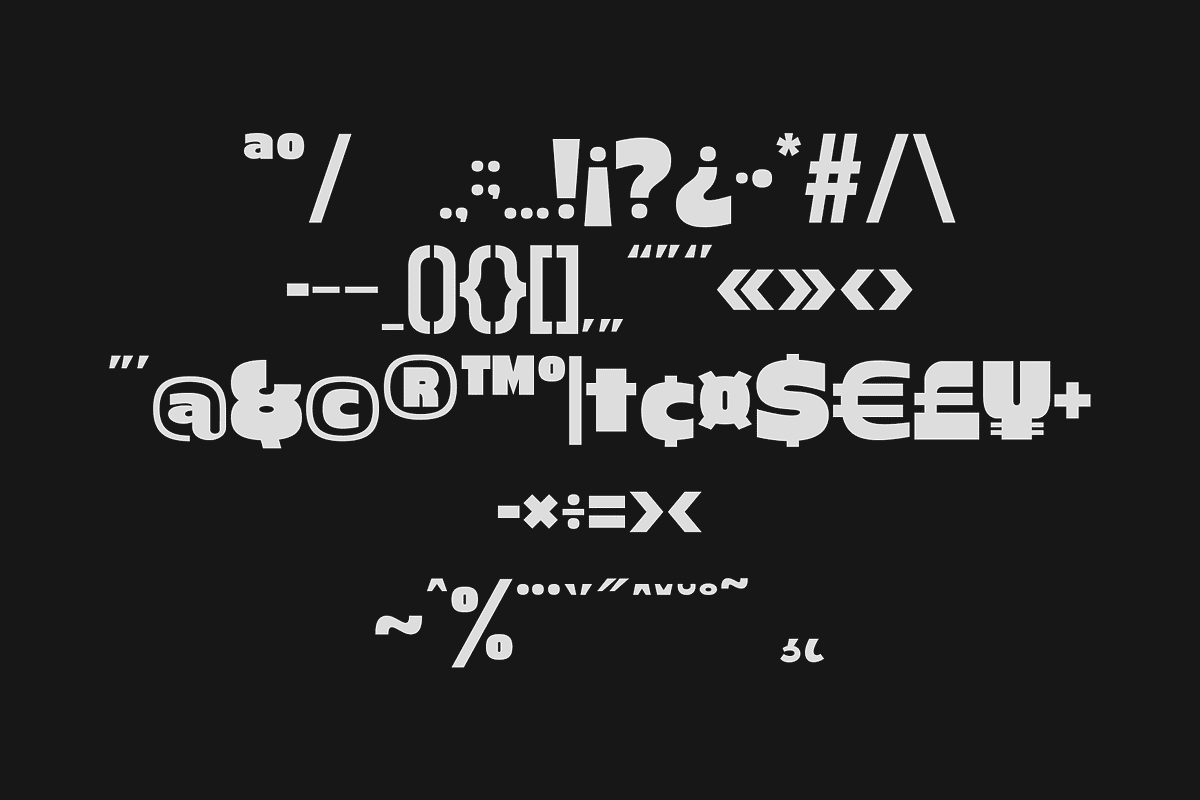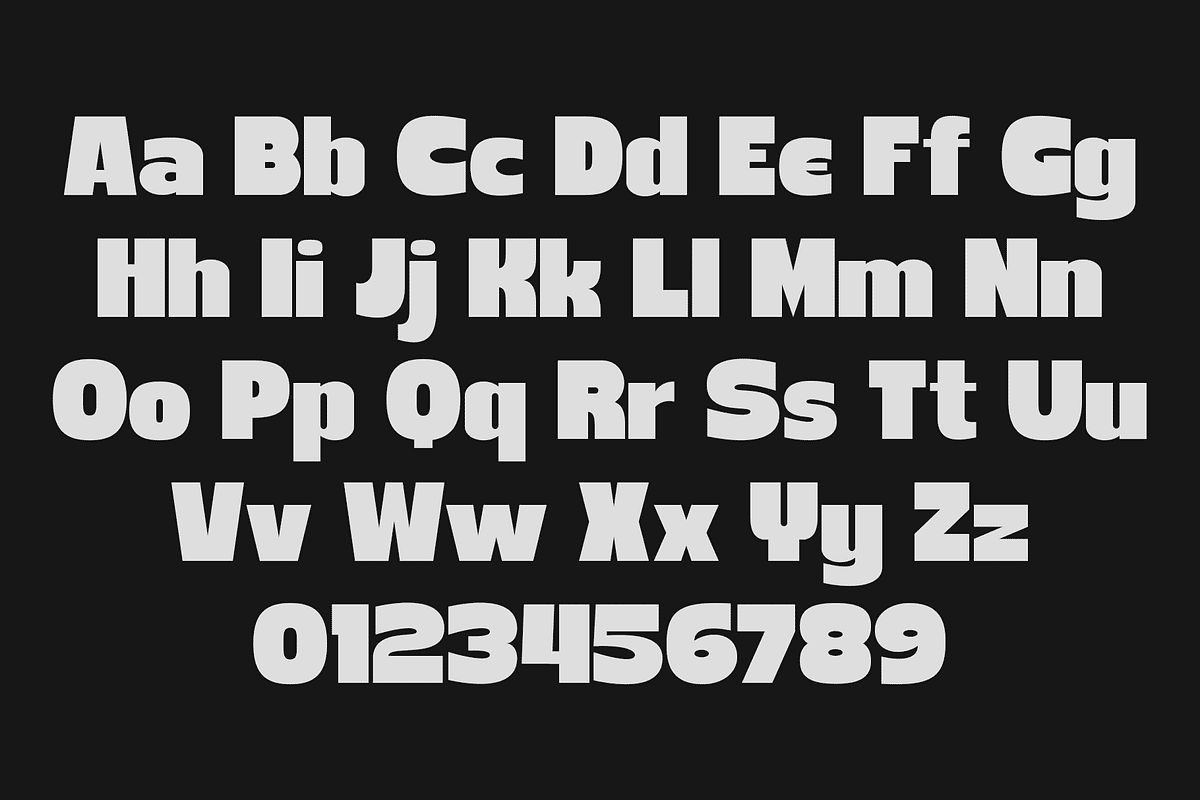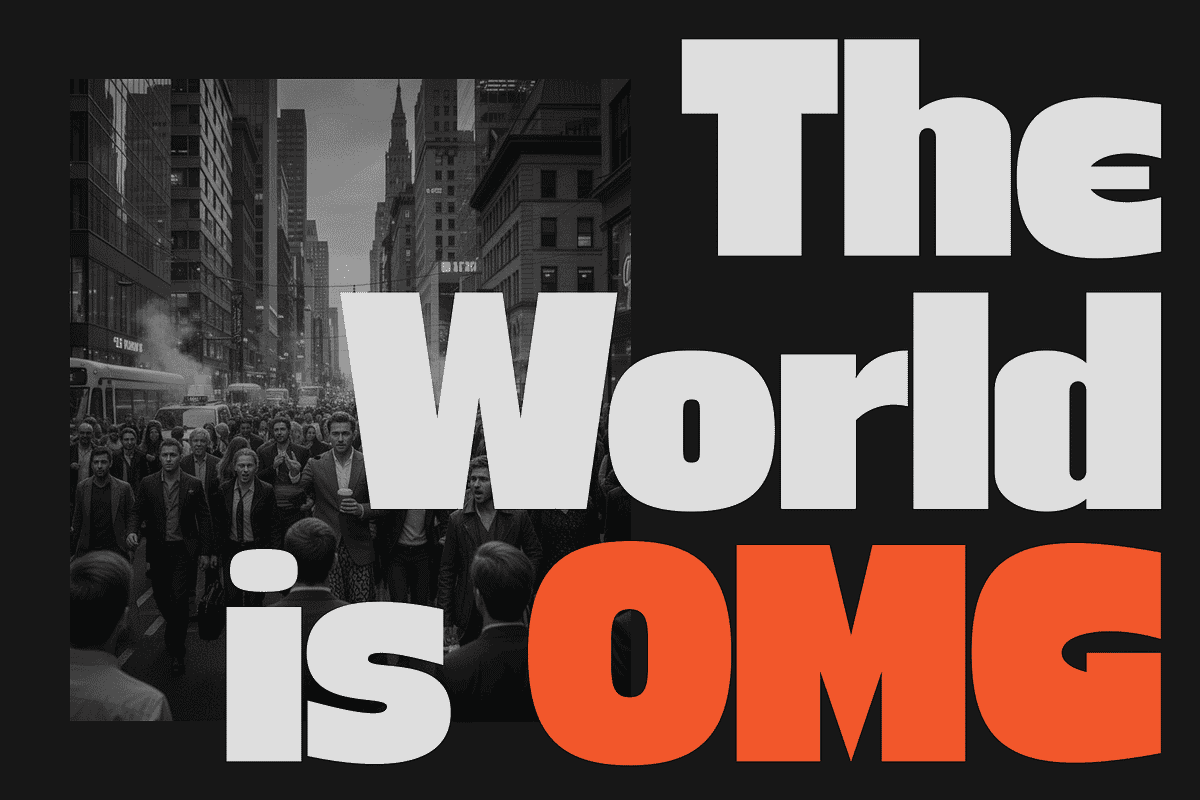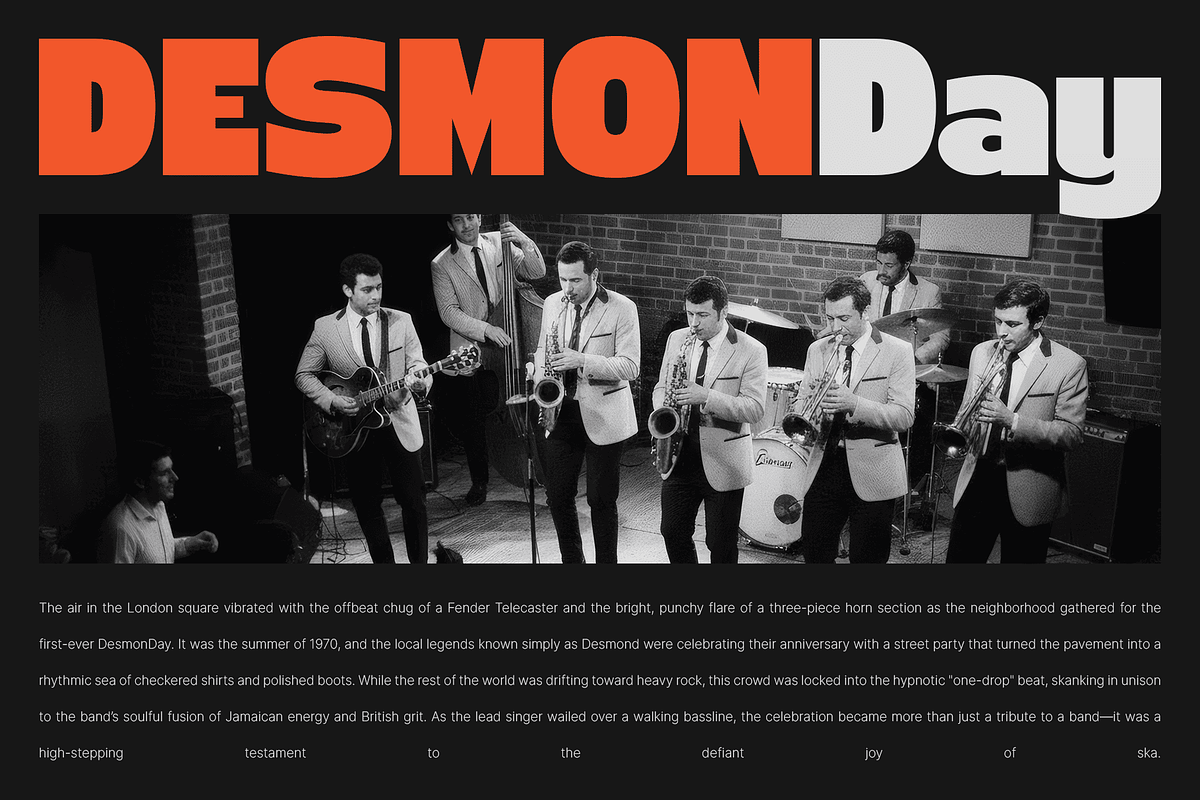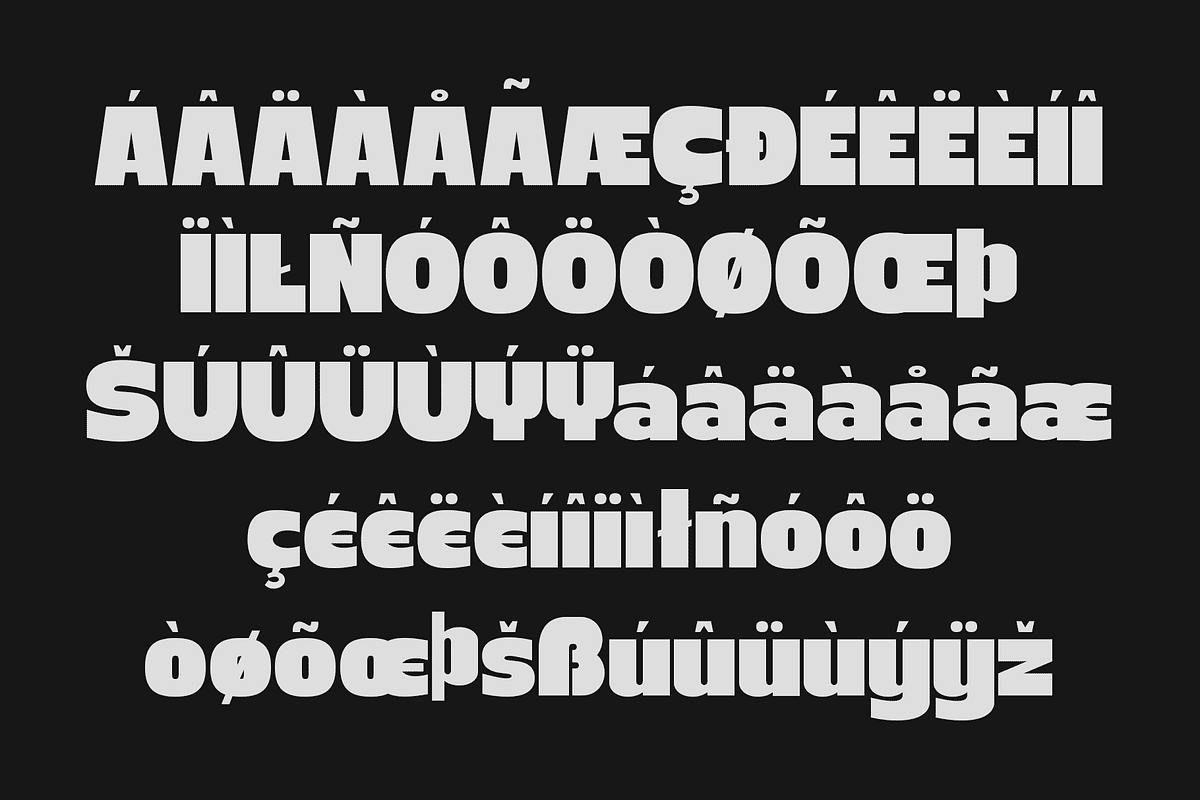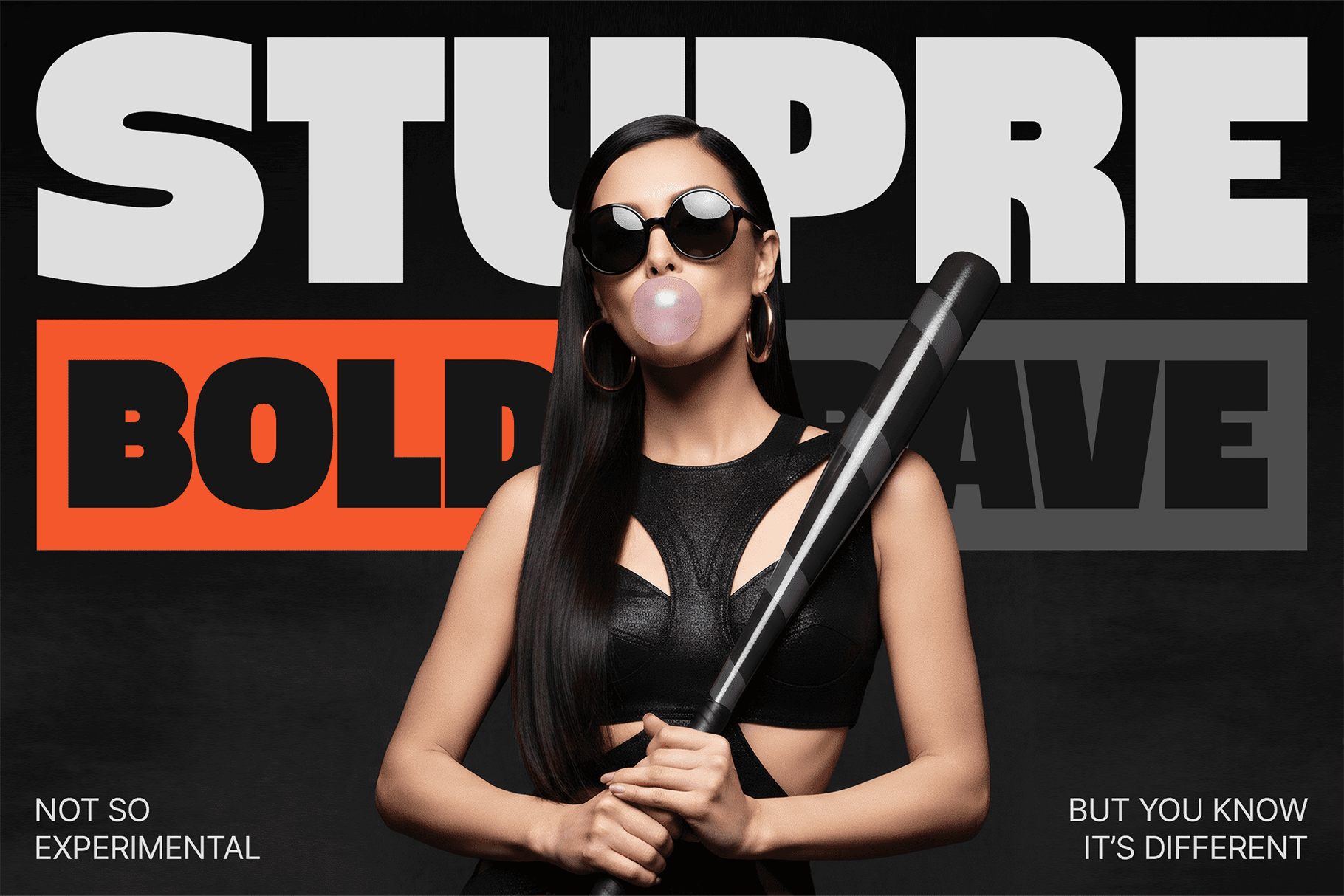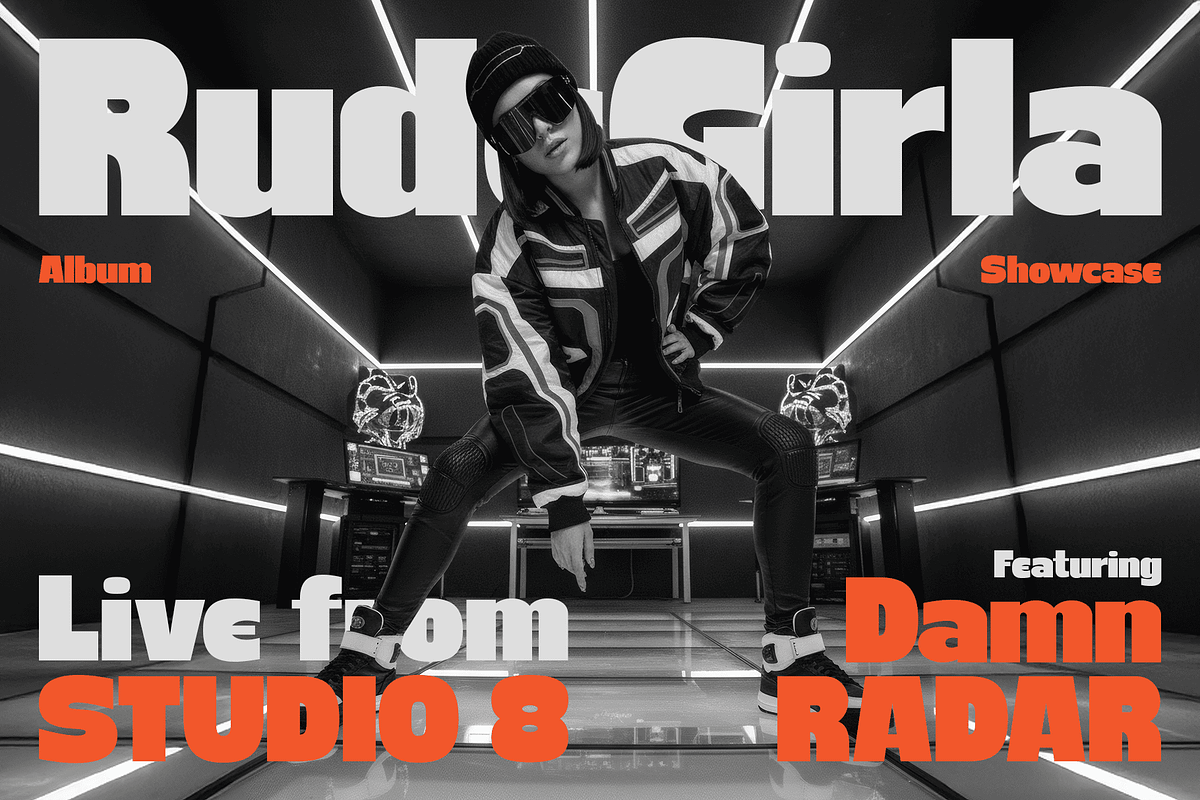
Stupre - Bold Sans Serif Fonts
They’ll call it a sans-serif. You’ll call it your secret weapon.
At first glance, Stupre feels familiar—solid, dependable, and undeniably modern. But look closer. It’s in the unexpected kick of the ‘K,’ the defiant curve of the ‘y,’ and the architectural weight of every stroke.
Stupre is a font of contradictions: it’s minimalist yet massive, disciplined yet daring. It’s designed for those who understand that true character isn't found in clutter, but in the subtle, sharp details that make a brand unforgettable.
Where Stupre Lives:
High-End Branding: Give your logo the structural integrity of a luxury monolith.
Fashion & Editorial: Perfect for mastheads that need to scream "Future."
Loud Messaging: When your poster needs to be heard from across the street, Stupre provides the volume.
Digital Interfaces: A bold choice for hero headers that demand immediate user attention.
Whether you’re building a streetwear empire or a tech startup that refuses to play by the rules, Stupre provides the visual gravity to hold it all together.
Own the Boldness. Don't settle for "safe" when you can have Stupre. Elevate your design toolkit with the font that speaks louder than words.